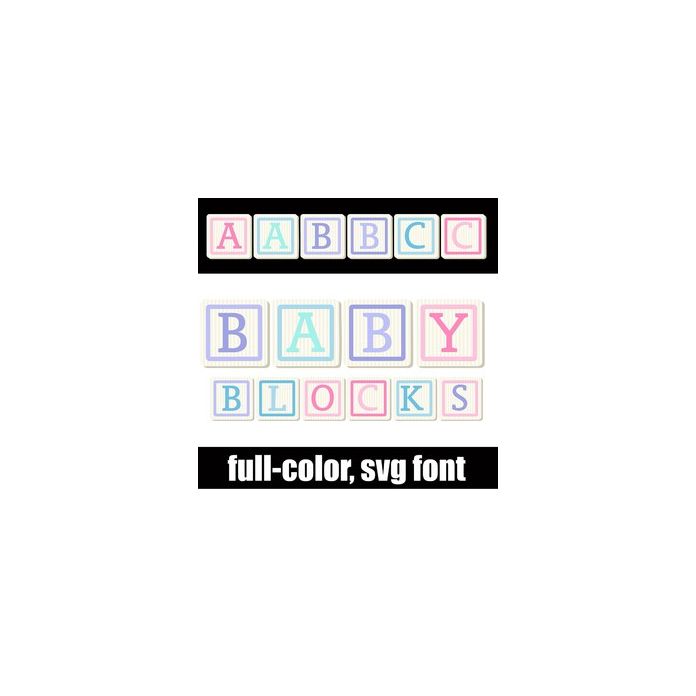
This full-color font features baby blocks in pastel colors. There is an alt case w/ additional colors you can access through your system or Silhouette's glyph map.